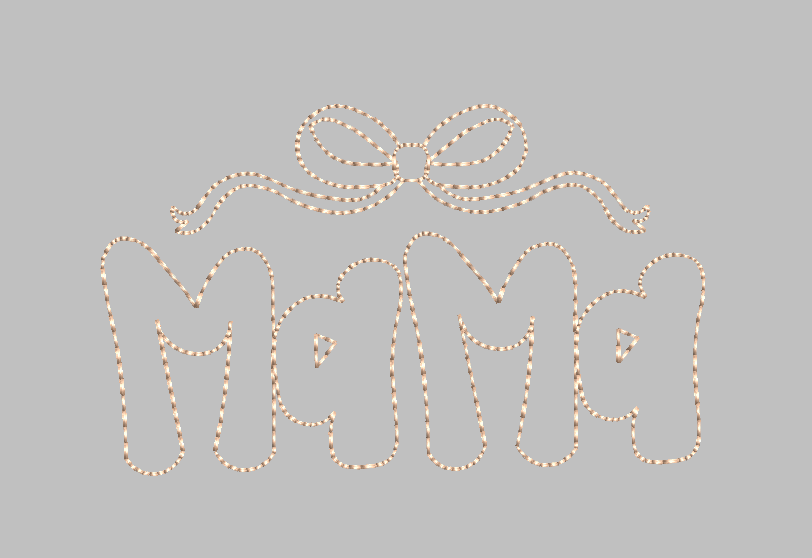
MAMA Embroidery Design, Grandmillenial Font Style with Coquette Bow, Outline Stitch File
Grandmillenial-Style Font, MAMA Embroidery Design for Mother's Day